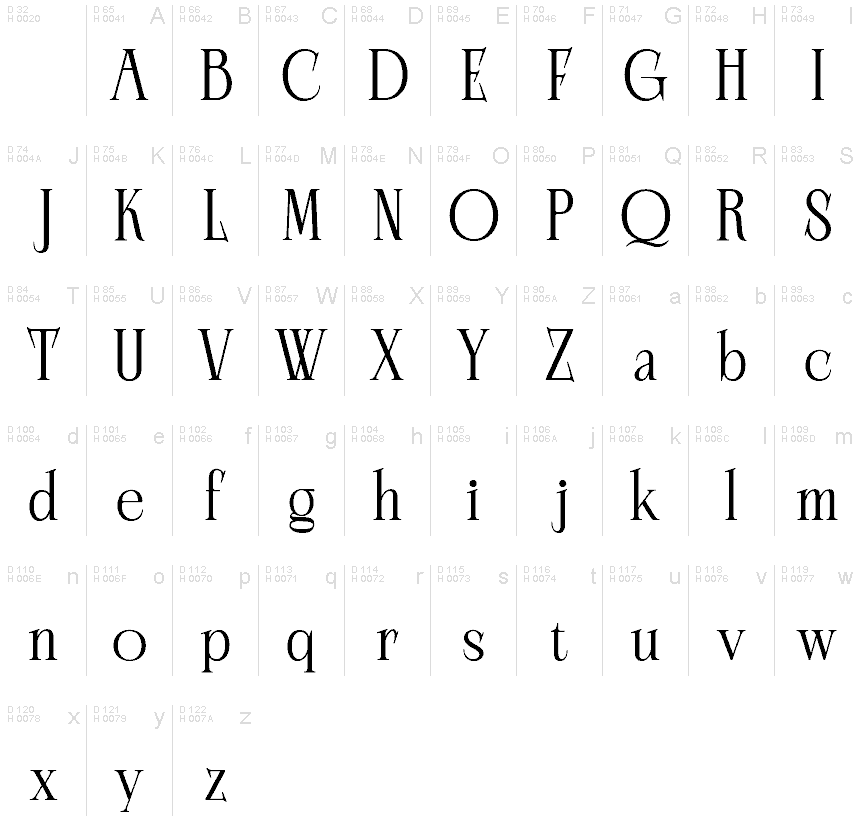
CS Praise Regular Demo
CS Praise font by Craft Supply Co. is an elegant, high-contrast, condensed serif font. The classic ambiance of this font is created by its thin sections that connect slightly thicker ones and sharp corners that add elegance to formal designs.
Use it for hotel centerpoint signs, magazine layouts, long reads in printed or digital format, editorials, fashion store branding pieces, and more. Impress audiences with its gorgeous presence on invitation cards and official letters as well!